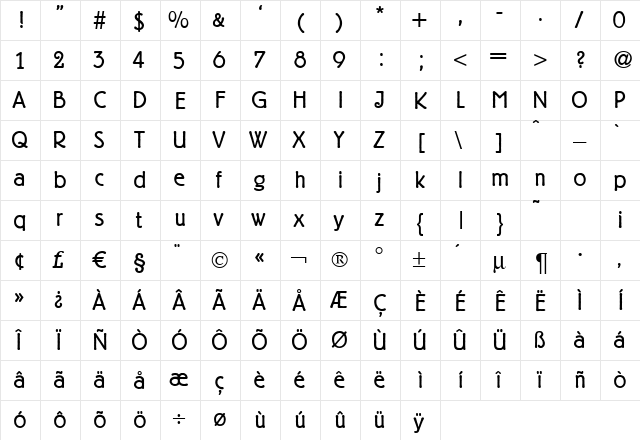
B693-Deco Regular
Design Context for B693-Deco Typeface
B693-Deco takes a measured approach to typography — its balanced proportions and neutral character make it a reliable workhorse for both digital and print work.
Pro Tip: Use B693-Deco in both headline and body roles to test its range before committing to a single application.